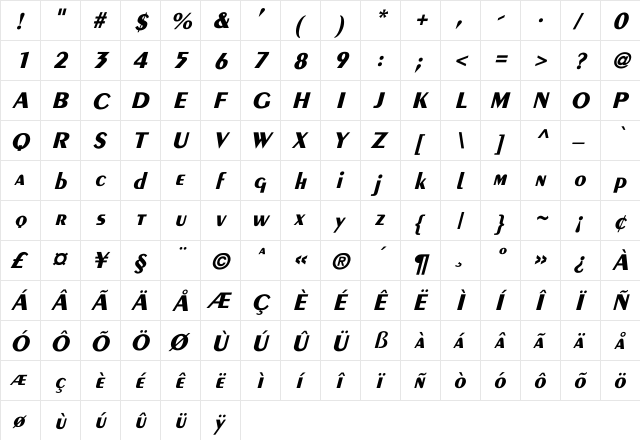
Peignot-Demi-Bold Italic Italic Font Preview
Design Context for Peignot-Demi-Bold Italic Typeface
Peignot-Demi-Bold Italic offers clean, dependable letterforms without strong stylistic allegiance, making it a practical choice for designers who need flexibility. Its italic angle brings a sense of urgency and motion to the letterforms. The heavy weight commands attention and anchors typographic hierarchies.
Pro Tip: Try Peignot-Demi-Bold Italic for annotation and caption copy alongside an upright companion — the contrast in angle creates a dynamic but ordered typographic system.